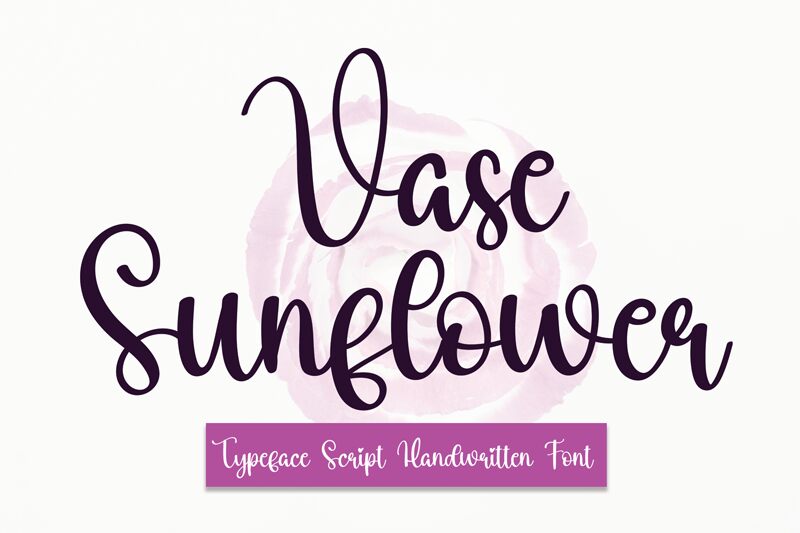
Vase Sunflower
Vase Sunflower, a mesmerizing calligraphy font designed by scratchones, is here to add elegance and sophistication to your creative projects. With its semi-light weight, this font gracefully captures attention without overpowering the design. Ideal for wedding invitations, greeting cards, and feminine branding materials, Vase Sunflower infuses an air of romance and enchantment. Its flowing strokes and delicate curves create a harmonious blend of classic beauty and modern style. Transform your designs into works of art with Vase Sunflower – the perfect choice for any project that requires a touch of refined grace.
The latest style letters are perfect for wall displays, wedding invitations, social media post logos, advertisements, product packaging, product designs, labels, photography, watermarks, invitations, stationery, and any project that requires taste handwriting.